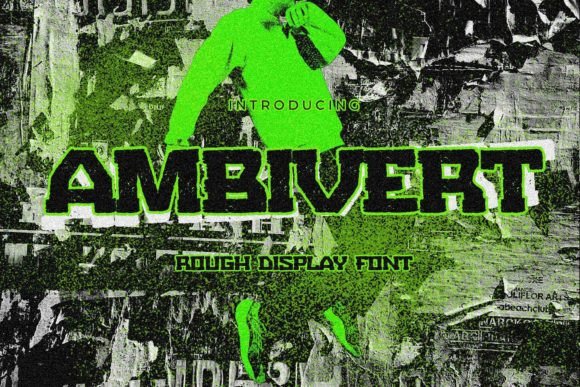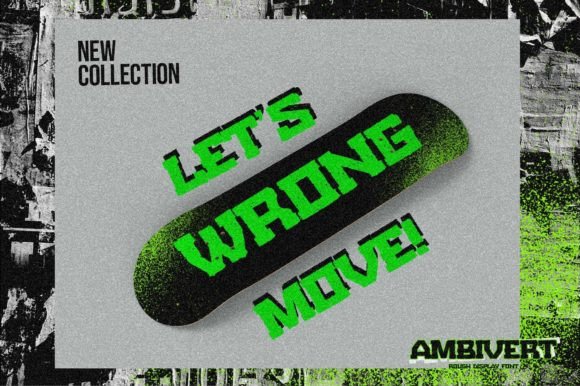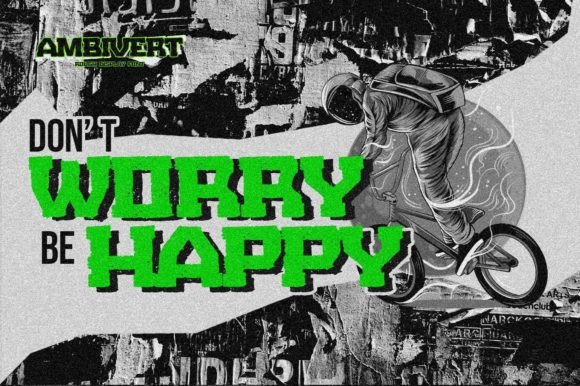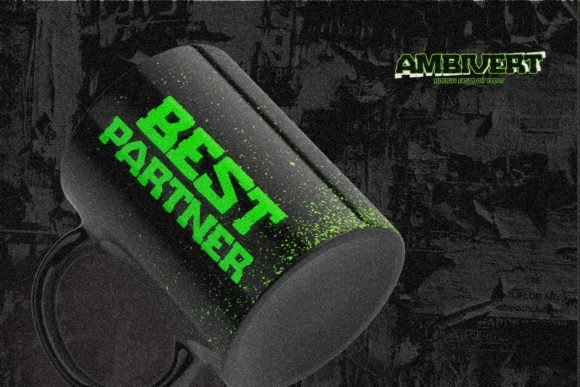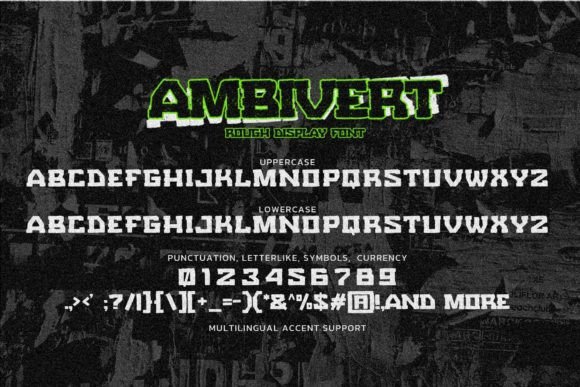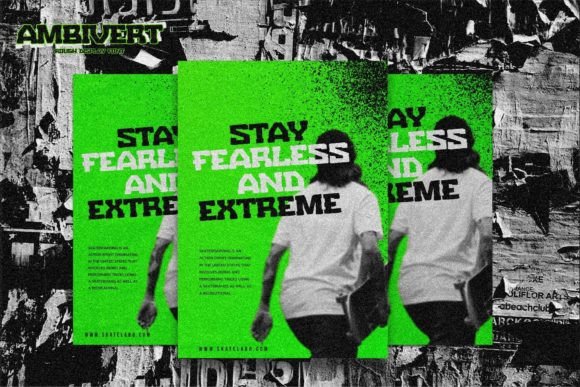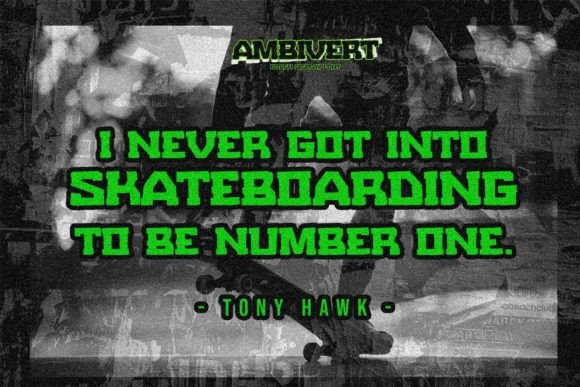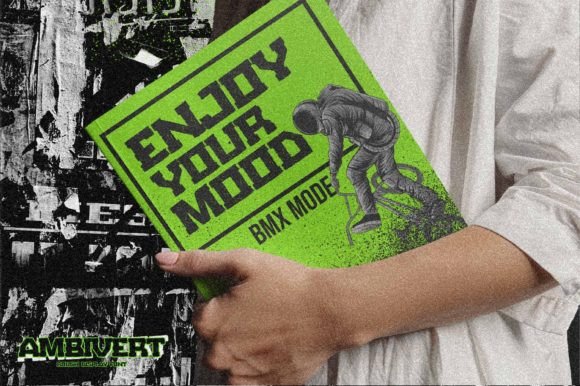
Ambivert
Ambivert: A Rough and Natural Slab Serif Font
Ambivert is a textured slab serif font with a natural and classy style. This charming typeface features authentic and relaxed characters that add a natural look to your text. Furthermore, it’s perfect for a wide range of creative projects, from logos and packaging to wedding designs and special events.
Key Features of Ambivert
• Rough Texture: Offers a distinctive, natural appearance.
• Classy Style: Maintains elegance despite its textured look.
• Authentic Feel: Creates a genuine, relaxed impression.
• Versatile Design: Works well across many applications.
Best Uses for Ambivert
Thanks to its unique characteristics, Ambivert works especially well for:
When using Ambivert in your designs, keep these tips in mind:
• Try it for headlines or short text to show off its textured style.
• Use different sizes to highlight its natural characteristics.
• Let its rough texture add authenticity to your designs.
• Mix with smoother fonts to create interesting contrasts.
To sum up, Ambivert is an excellent choice for designers seeking a rough slab serif font with natural charm. Its textured style and classy appearance make it perfect for projects that need to stand out. Whether you’re creating logos, designing invitations, or developing packaging, Ambivert offers the perfect blend of authenticity and sophistication.
Moreover, Ambivert’s unique design allows it to shine in contexts where a natural, relaxed feel is desired. For instance, from wedding materials to product designs, this font can enhance your projects with its distinctive style. Also, its charming yet readable appearance works particularly well in designs that aim to create a genuine connection with viewers.
In conclusion, Ambivert truly captures the essence of natural, textured typography in slab serif design. Its versatility across different applications shows how well it can serve various creative needs. Therefore, for those wanting to add a touch of authentic charm to their work, Ambivert can enhance any design with its unique style. Ultimately, it’s perfect for designers aiming to make a natural, memorable impact across a wide range of creative projects.